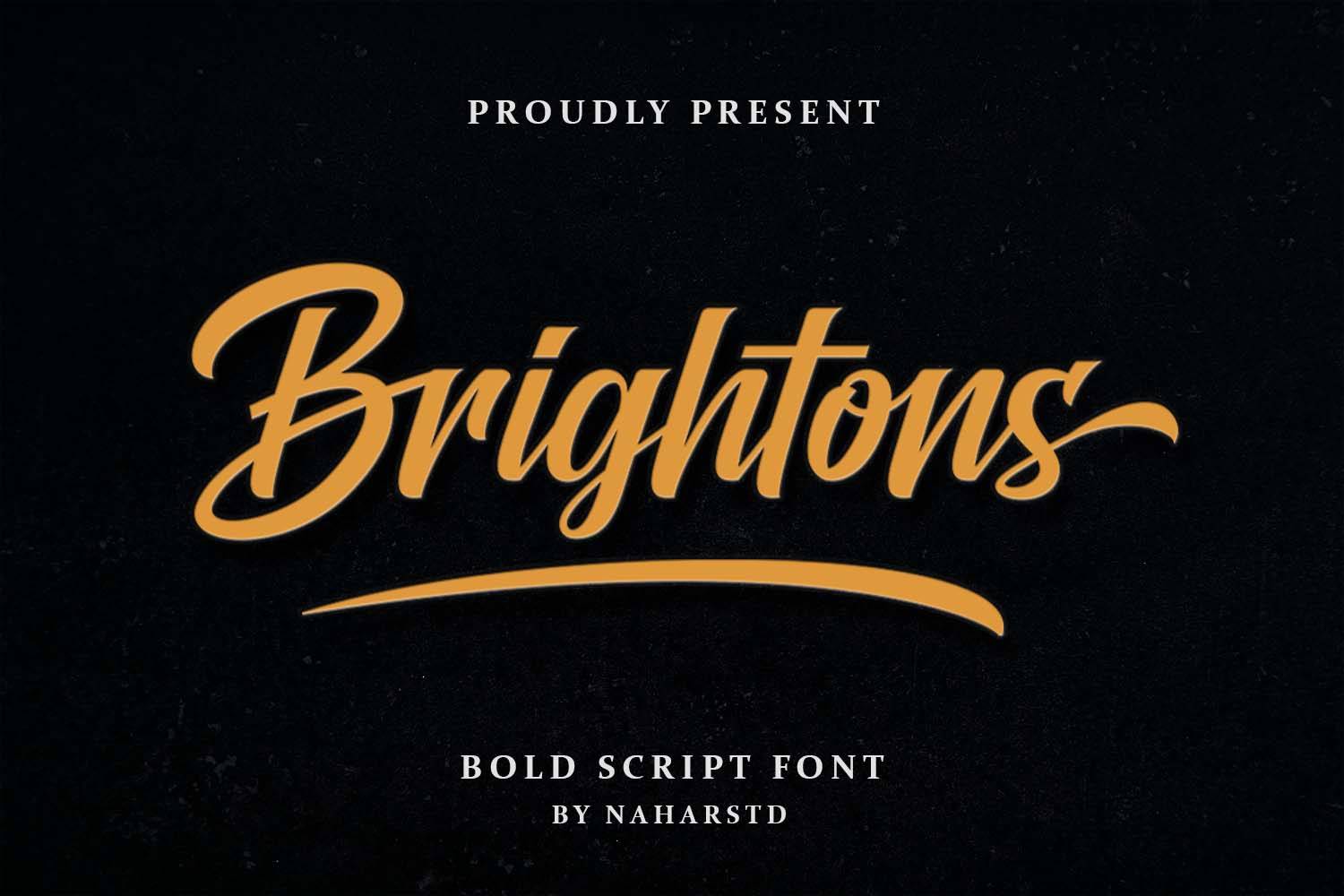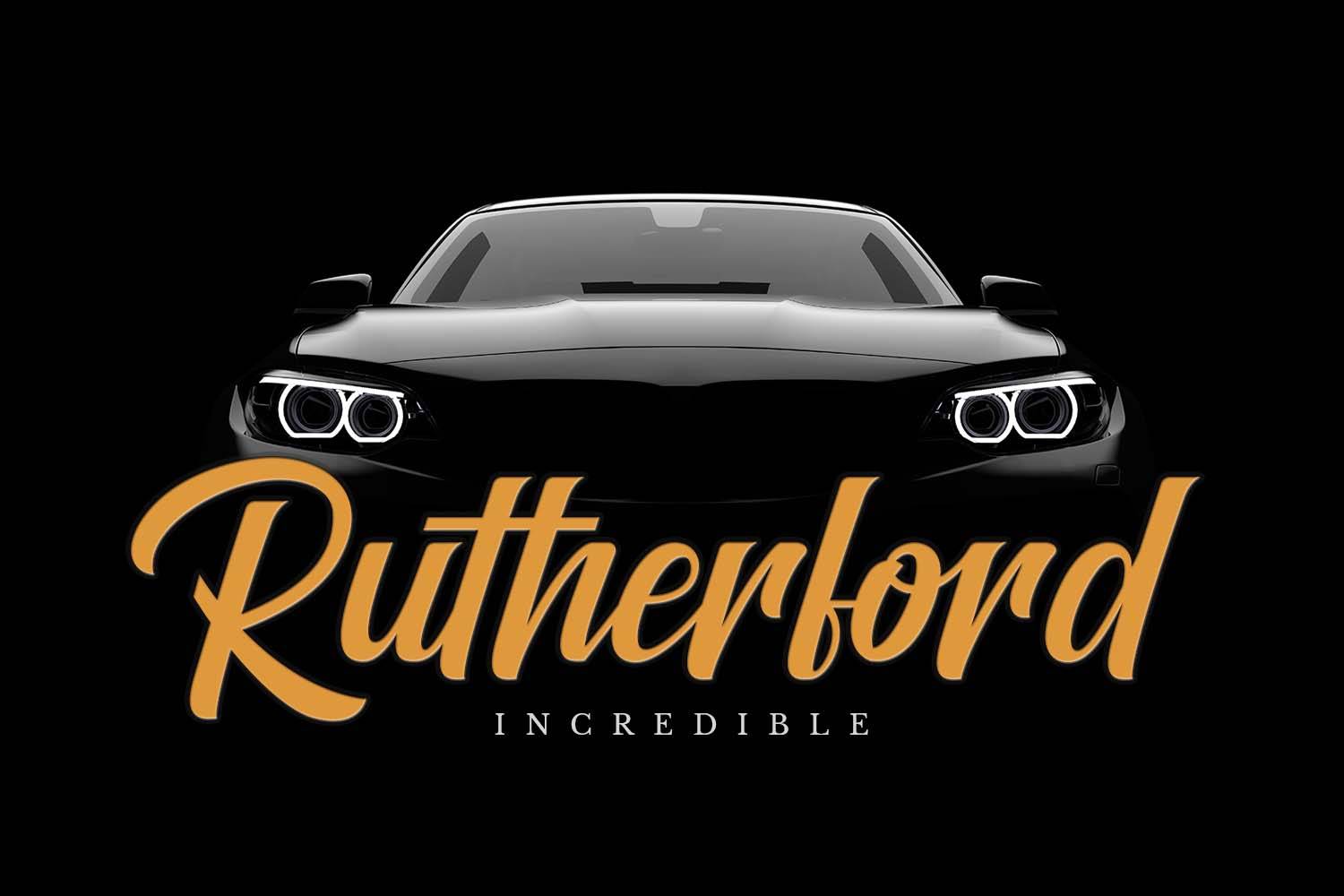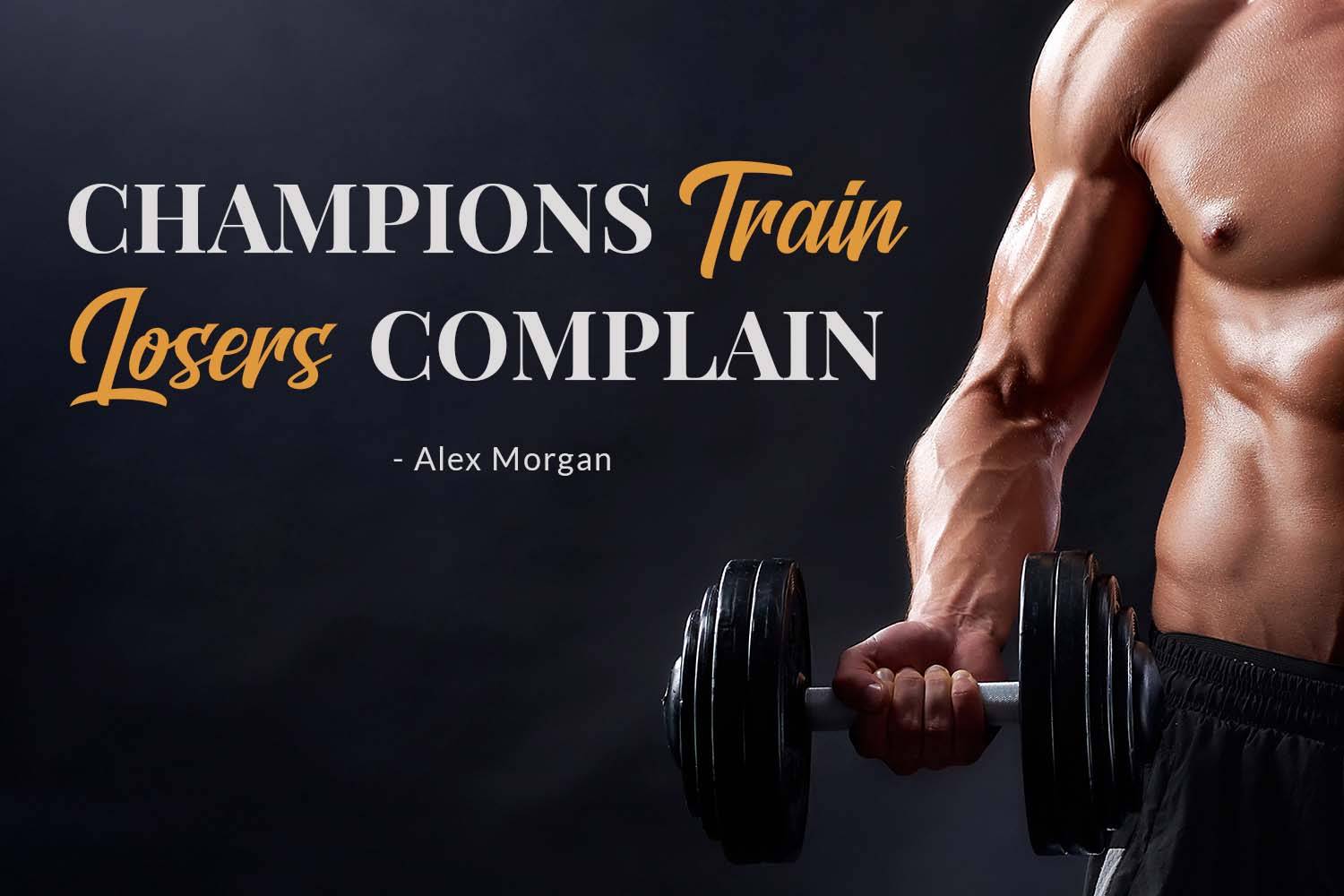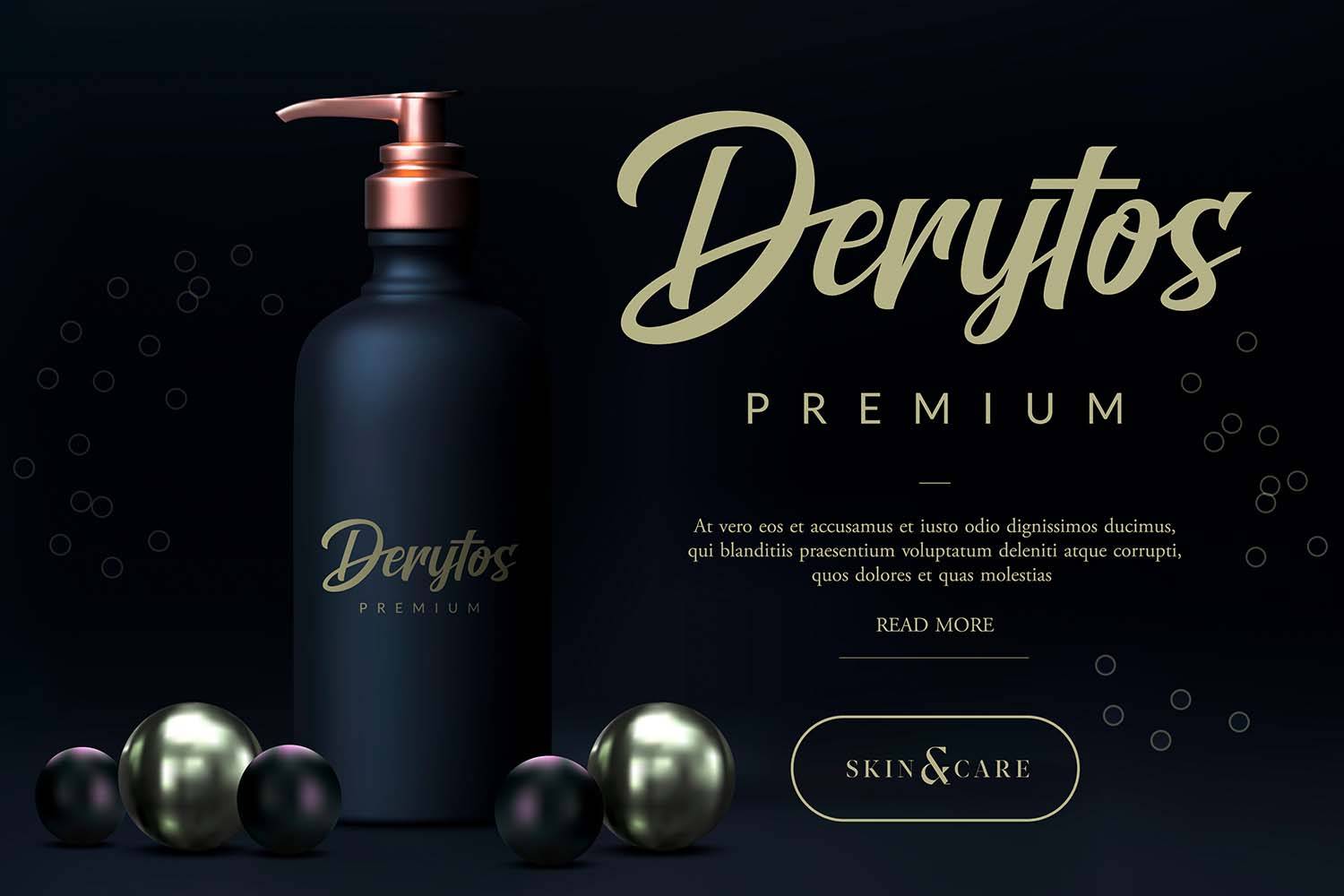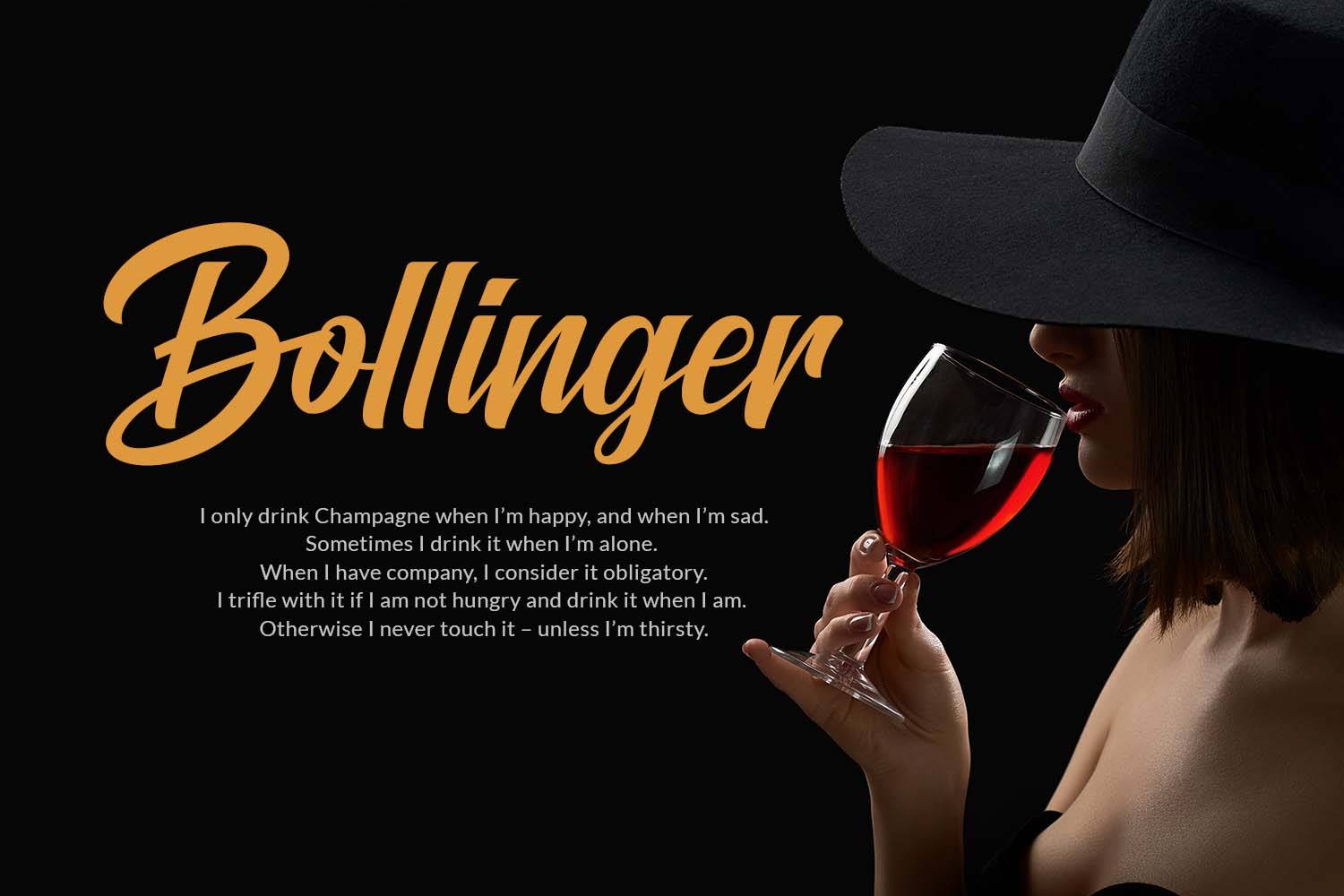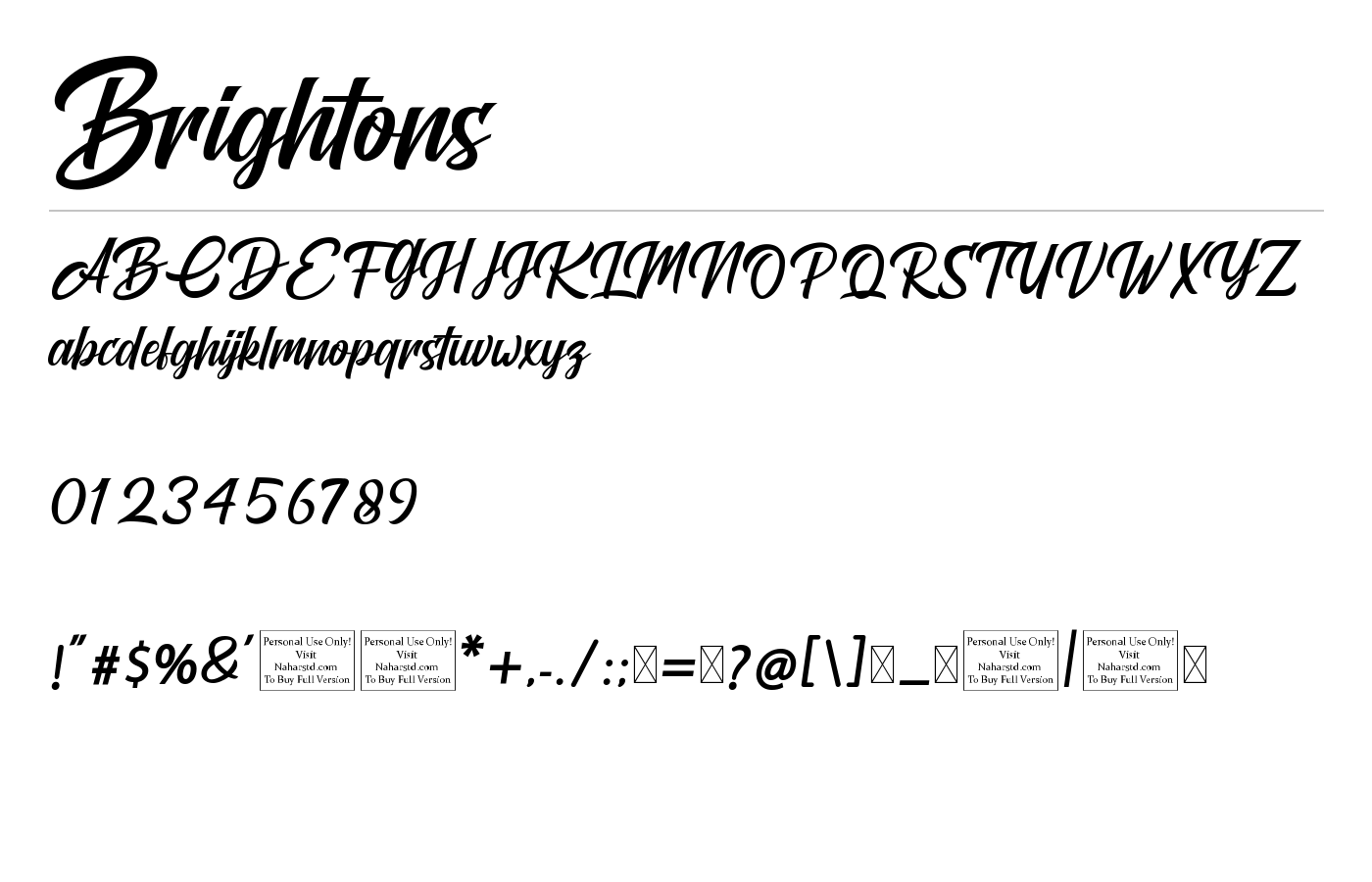
Brightons is a stylish script font featuring smooth, flowing strokes with medium contrast and an elegant, handwritten feel. Its connected letterforms and slightly condensed shapes give it a lively yet refined personality, making it ideal for branding, invitations, and any design that seeks a touch of sophistication with a friendly vibe. This font shines in logos and headlines where a graceful, personal touch is desired.
| Font family | Brightons Font |
| Release date | 2020-09-02 |
| Designer | Nanda Hardiansyah | Naharstd |